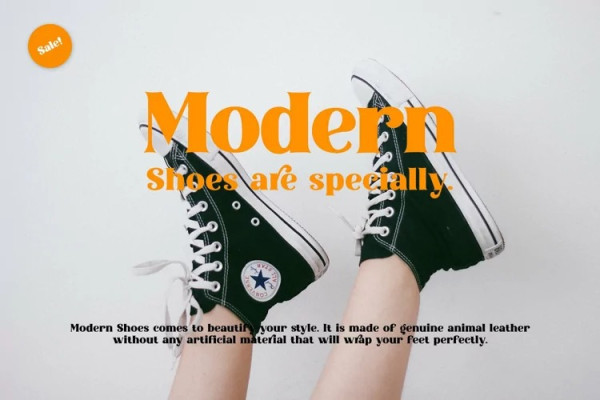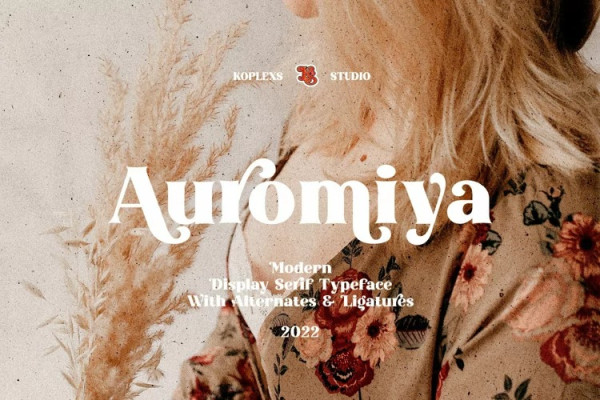
Auromiya Font
Auromiya Font – Modern Display Serif Typeface the 80’s and 90’s are classic eras, which according to my research results are becoming a trend again today, so we started to produce a written artwork that refers to that era, namely a modern retro display style.
Auromiya Font – Modern Display Serif Typeface is one of our writing designs that we think is very good and elegant when used for design styles with a modern retro style.
Auromiya – Modern Display Serif Typeface font is a collection of modern, retro, serif font, feminine, beautiful and classy characters, giving you a unique look for any branding or design need.